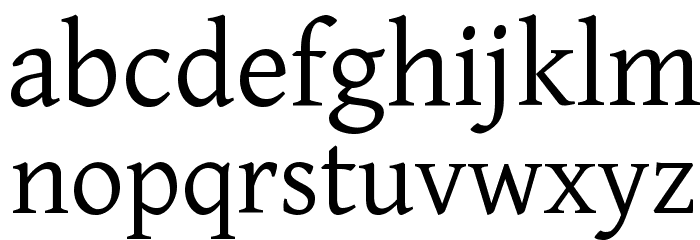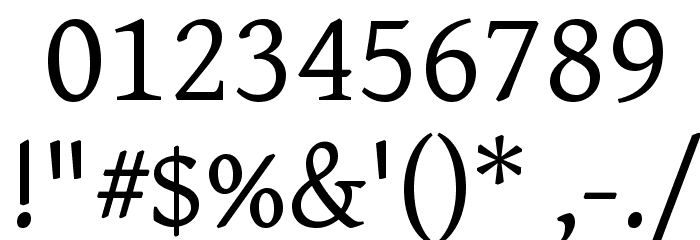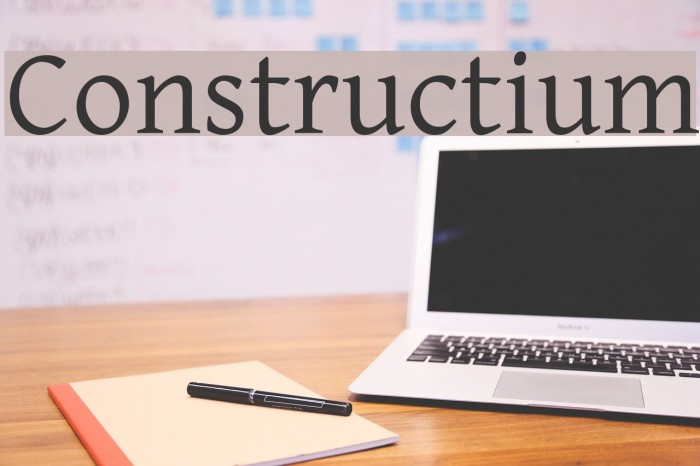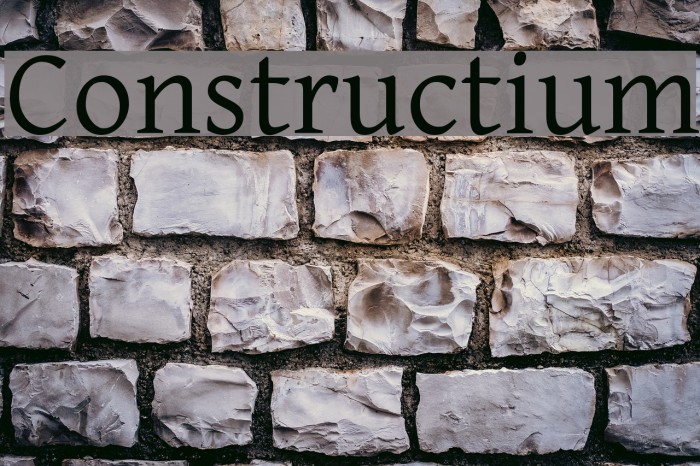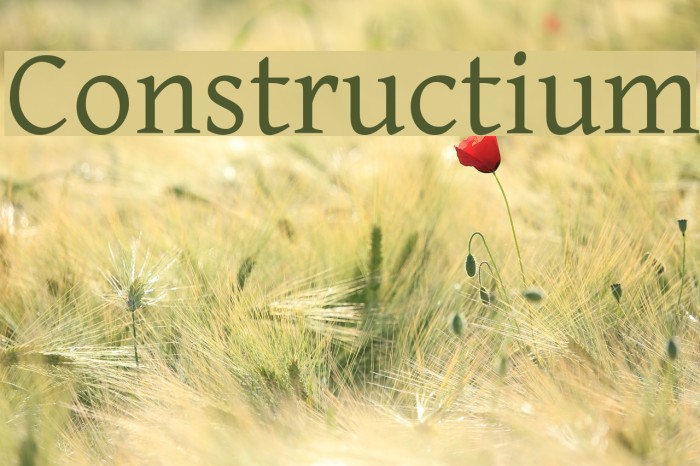
Constructium Font
This font features a classic serif style with elegant, well-defined strokes and a balanced structure. The uppercase letters are bold and commanding, while the lowercase letters maintain a graceful and readable form. The numerals are clear and distinct, with a traditional appearance that complements the overall design. Special characters are crafted with precision, ensuring consistency across all glyphs. The font's design is versatile, making it suitable for both formal and informal contexts. Its timeless appeal is enhanced by the subtle contrast in stroke thickness, which adds depth and character.
A classic serif font with elegant strokes and balanced structure.
- Font: Constructium
- Proposed Projects: Ideal for editorial design, book covers, formal invitations, and branding projects that require a touch of elegance.
- Category: Serif
- Overall Style: Classic
- Use Case: Headlines, Body text, Logos